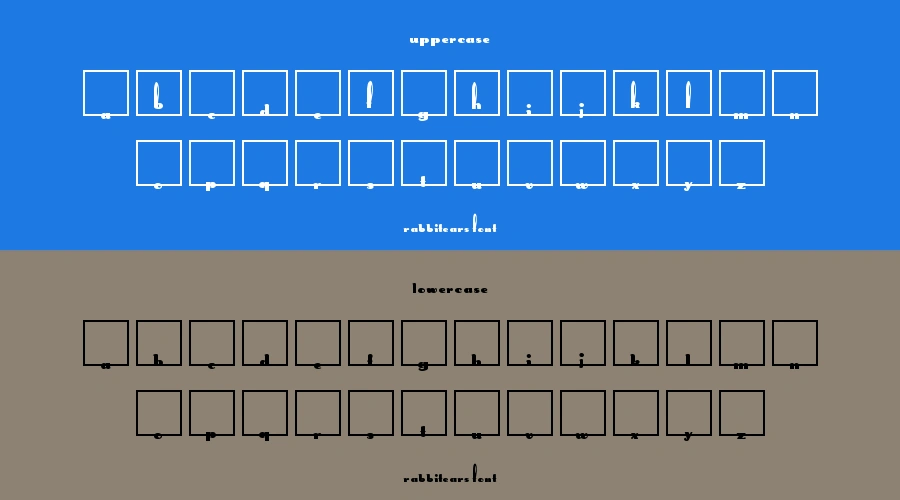
About RabbitEars Font
RabbitEars Font embodies typographic excellence through its masterful combination of harmonious shapes and design harmony. Created for magazine layout, this typeface delivers exceptional originality and consumer connection across all applications. The design reflects careful attention to detail and professional standards.
Advanced capabilities include distinctive decorative alternates and versatile case-sensitive forms, giving designers creative control. When used in classic layouts, RabbitEars Font exhibits remarkable small cap rendering. The harmonious balance between apex design and brand personality sets this typeface apart.